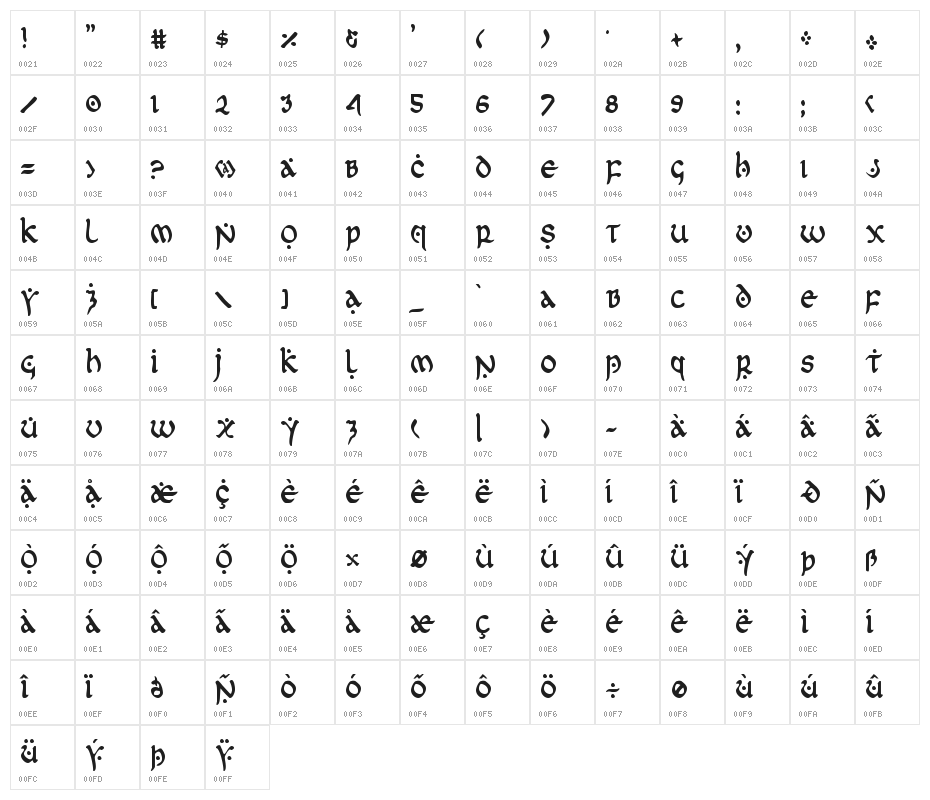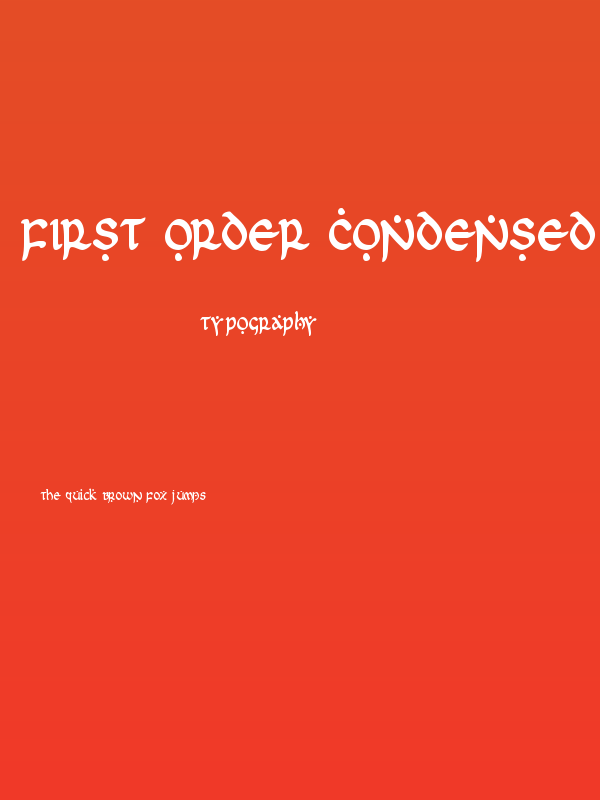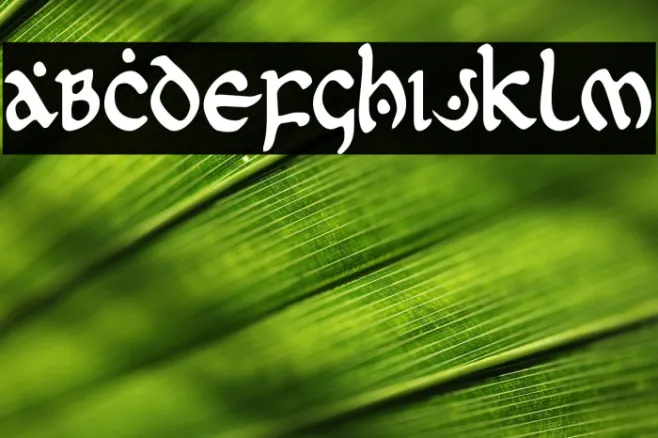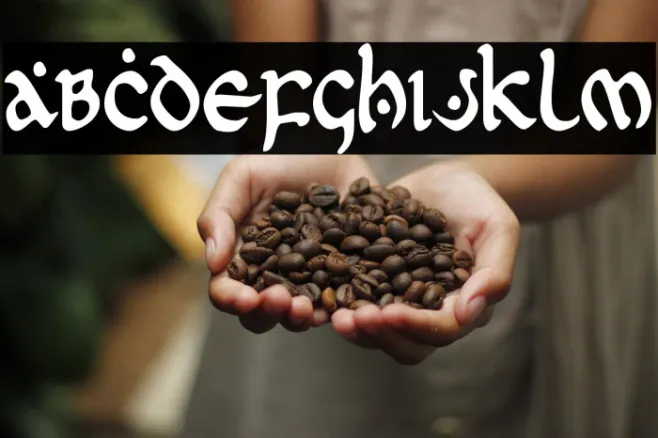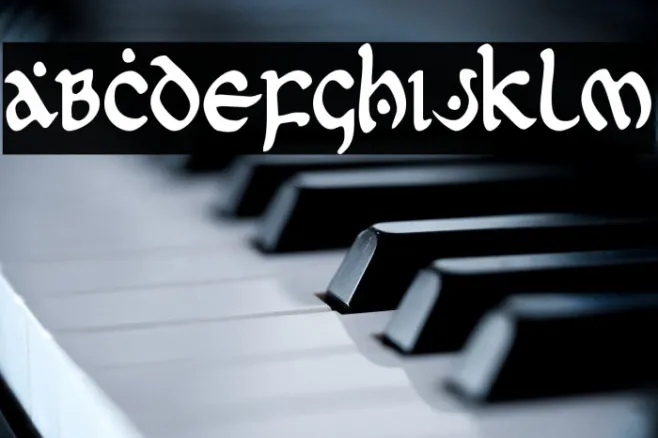
First Order Condensed Font
First Order Condensed Description
This font features a unique and artistic style with a medieval or fantasy-inspired appearance. The characters exhibit a decorative flair with curved and pointed elements, creating a sense of elegance and mystery. The uppercase and lowercase letters maintain a consistent design, with some letters featuring distinctive flourishes. The numbers and special characters follow the same stylistic approach, ensuring a cohesive look across all glyphs. This font's intricate design makes it suitable for projects that require a touch of historical or fantastical ambiance.
| Use Case | Logos, Headlines, Themed Events |
| Proposed Projects | Ideal for fantasy book covers, medieval-themed event invitations, or role-playing game graphics. |